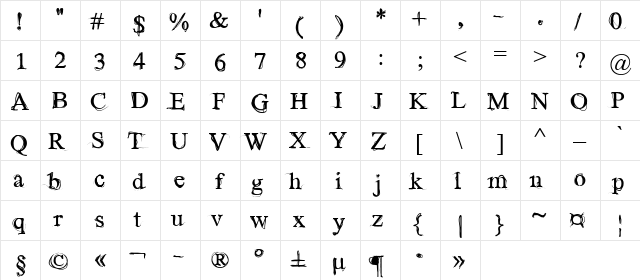
Wilderness Regular
| Foundry | K.Whetstone |
| Designer | K. Whetstone |
Design Context for Wilderness Typeface
Wilderness is a composed and adaptable typeface that performs quietly and consistently across a wide range of design contexts.